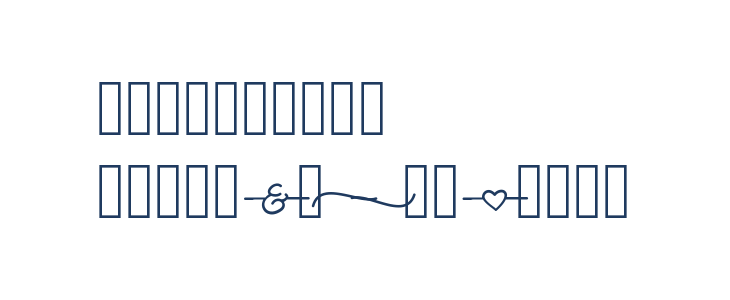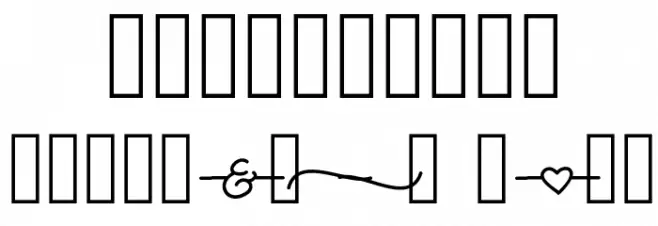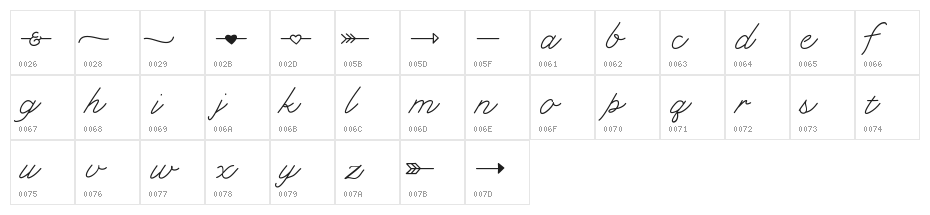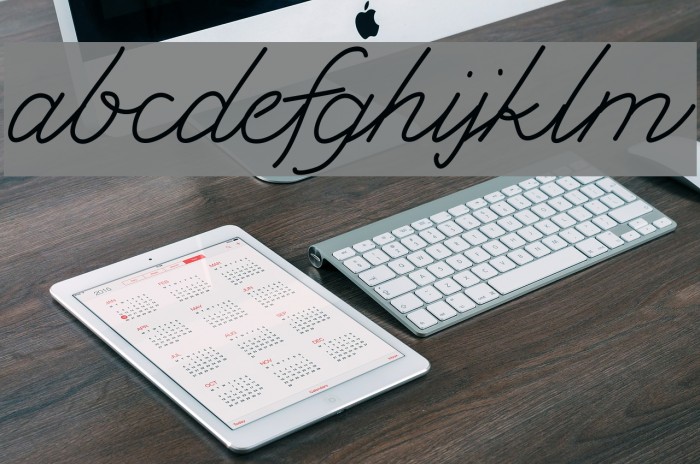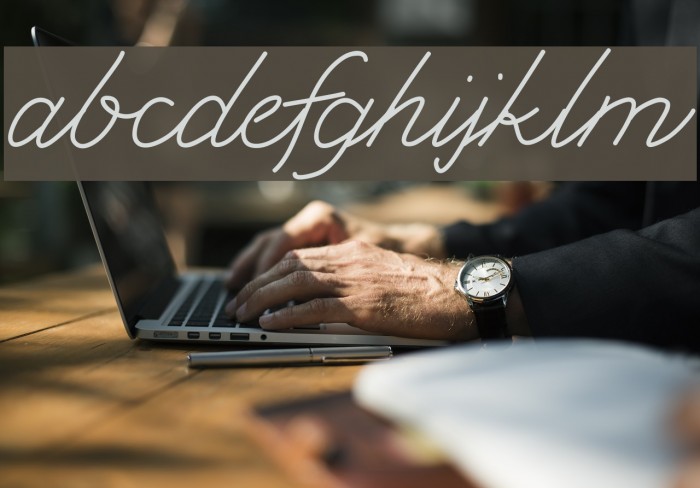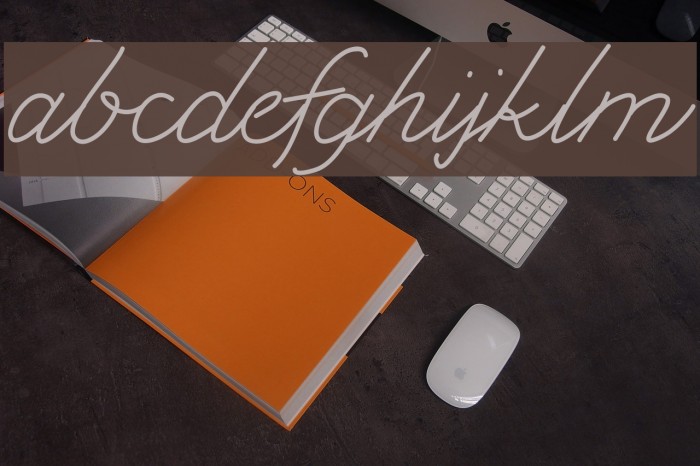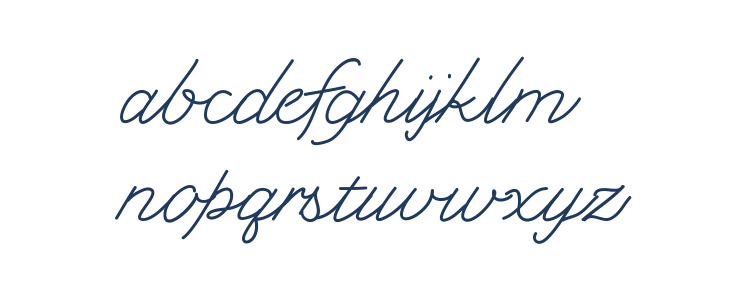
KLCupid Font
KLCupid Description
This font features a charming and elegant cursive style, characterized by smooth, flowing lines and a handwritten appearance. The lowercase letters are particularly graceful, with each character seamlessly connecting to the next, creating a fluid and cohesive look. The uppercase letters maintain a consistent style, offering a more structured yet still playful appearance. The font includes a variety of special characters, such as a heart and swirls, adding a whimsical touch. Its overall design is both romantic and sophisticated, making it ideal for projects that require a personal and intimate feel.
| Overall Style | Romantic |
| Use Case | Invitations, Personal notes, Branding |
| Proposed Projects | Ideal for wedding invitations, love letters, greeting cards, and romantic branding projects. |